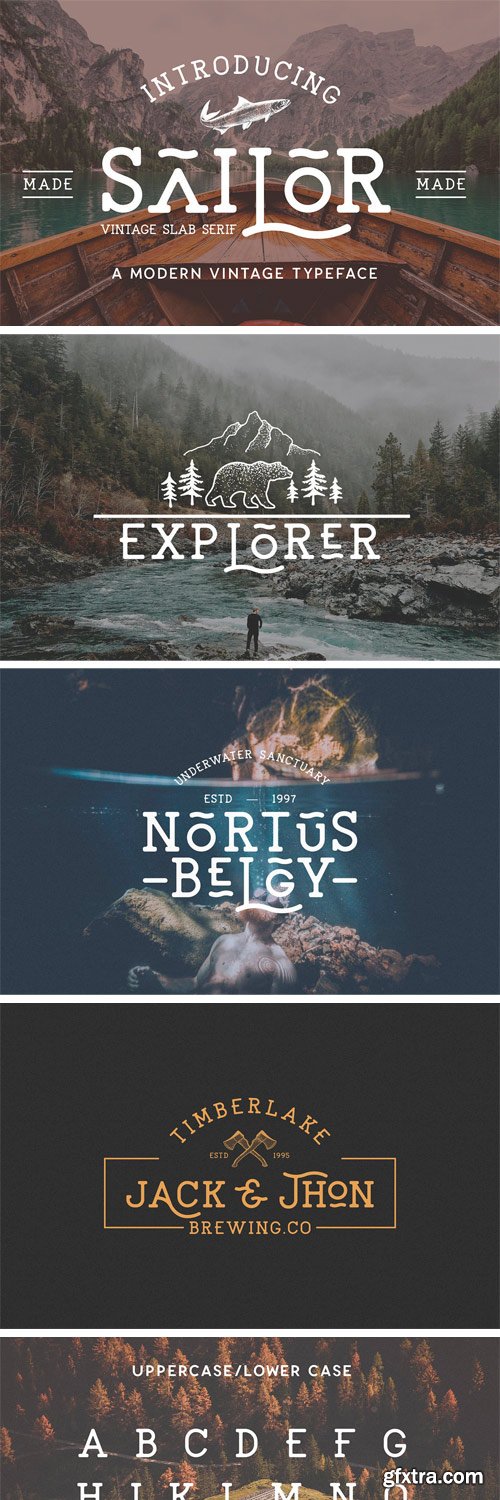
Sailor Font Family
Sailor is a modern and simple vintage slab serif font, with smooth edges to simulate vintage printing. Perfect for vintage logo designs, headers and small amounts of text. It contains an uppercase alphabet with alternative character, numbers and symbols.